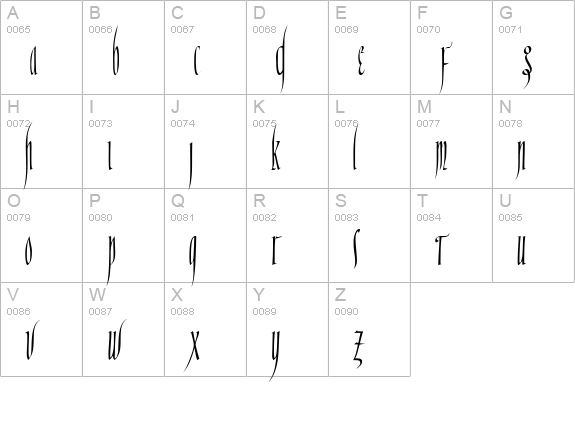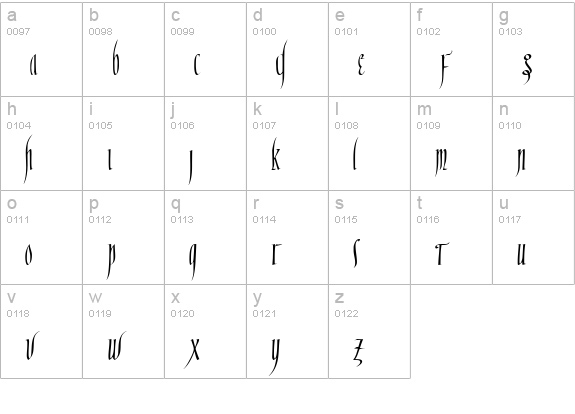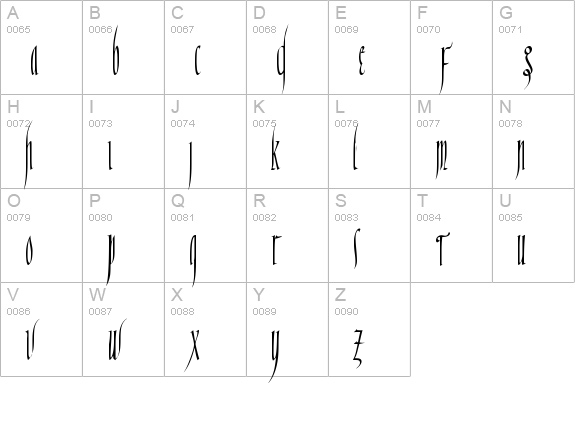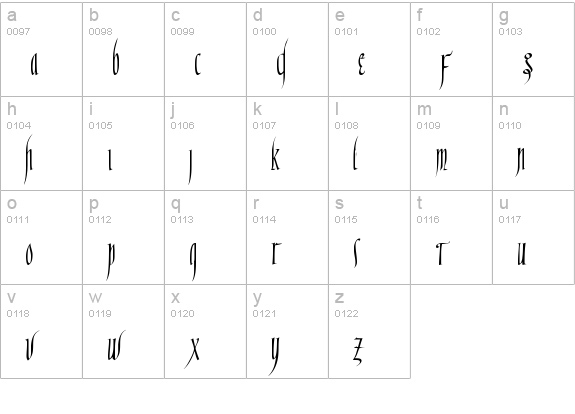
Ranegundâ„¢ Font Details
Ranegundâ„¢ font is a visually stunning typeface that exudes elegance and sophistication. With its intricate details and graceful curves, this font is perfect for adding a touch of sophistication to any design project. This font boasts a unique combination of classic and modern elements, making it versatile for a wide range of applications. Whether you're working on a wedding invitation, a logo, or a branding project, Ranegundâ„¢ font will surely elevate your design to new heights. One of the best things about Ranegundâ„¢ font is that it is absolutely free. Yes, you read that right. This beautiful font is freely available to download at FontsMarket.com. This means that you can add a touch of elegance to your designs without having to spend a fortune. Downloading Ranegundâ„¢ font is a breeze. Simply head over to FontsMarket.com, locate the font, and click the download button. Within seconds, you'll have access to this stunning typeface and can start incorporating it into your designs. Not only is Ranegundâ„¢ font visually appealing, but it is also highly legible, ensuring that your message comes across clearly. Its well-designed letterforms make it easy to read, even at small sizes, making it a great choice for both print and digital projects. So why wait? Enhance your designs with the timeless beauty of Ranegundâ„¢ font. Download it for free at FontsMarket.com and let your creativity soar.